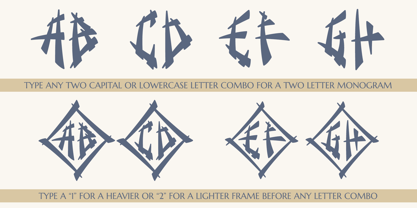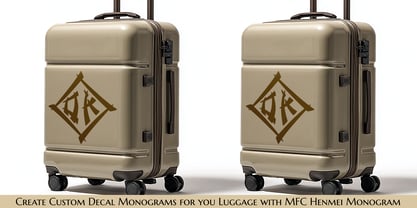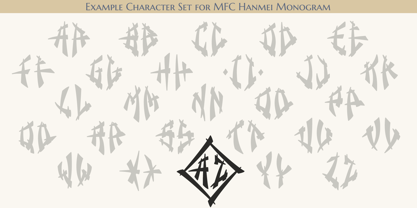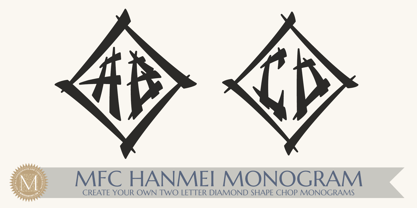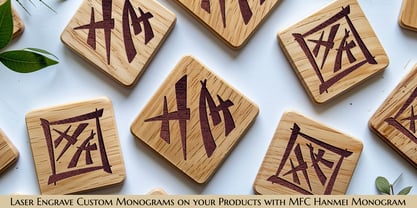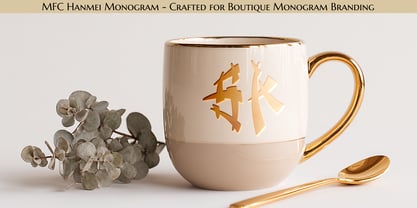
MFC Hanmei Monogram
La familia tipográfica MFC Hanmei Monogram fue diseñada por Brian J. Bonislawsky y publicada por Monogram Fonts Co.. MFC Hanmei Monogram contiene 1 estilos. Más información sobre esta familia
MFC Hanmei Monogram is a distinctive display monogram inspired by the elegant tension of East Asian calligraphy and the ceremonial geometry of traditional crestwork. Designed with the signature refinement of Monogram Fonts Co, MFC Hanmei Monogram blends expressive brush-like strokes with a bold, diamond-framed architecture that gives every pair of initials an immediate sense of importance and artistry. Each monogram is built from angular, ink-inspired strokes that echo carved seals, lacquered signage, and the timeless craft of hand-brushed characters. The optional surrounding diamond frame adds structure and formality, creating a striking balance between organic gesture and geometric intention. The result is a monogram style that feels at once ancient and contemporary—perfect for identities that demand presence, symbolism, and cultural depth. Ideal for wedding suites, boutique branding, luxury packaging, ceremonial stationery, and any project seeking a monogram with expressive character, MFC Hanmei Monogram offers designers a beautifully stylized solution that stands apart from traditional engraved or serifed monogram styles.
Diseñadores: Brian J. Bonislawsky